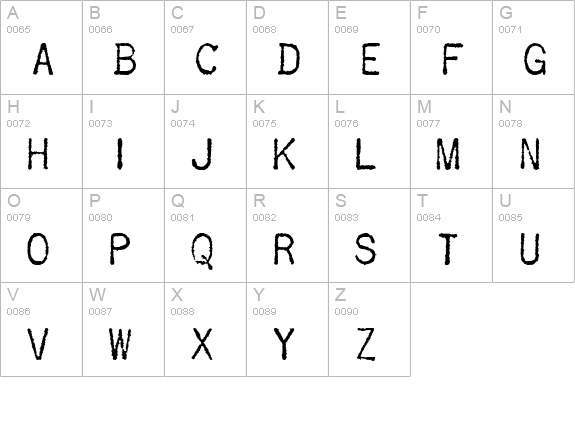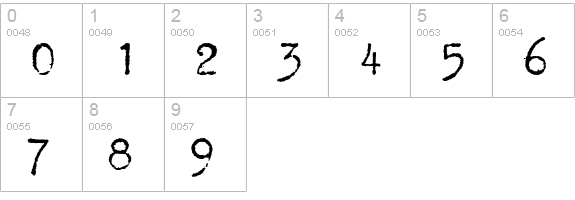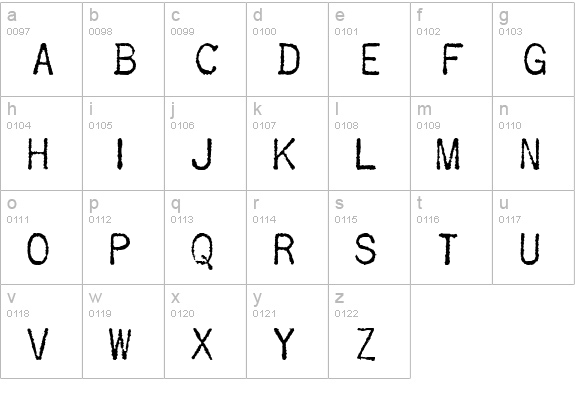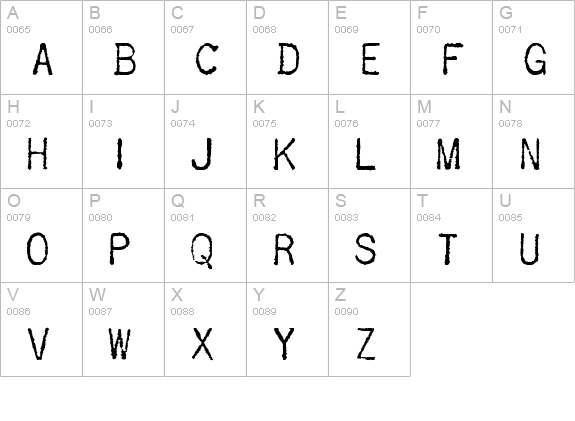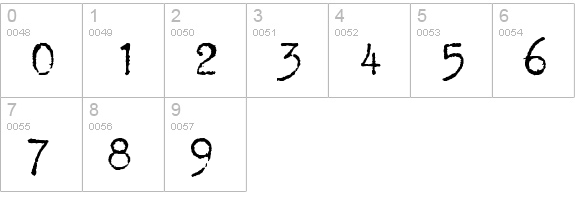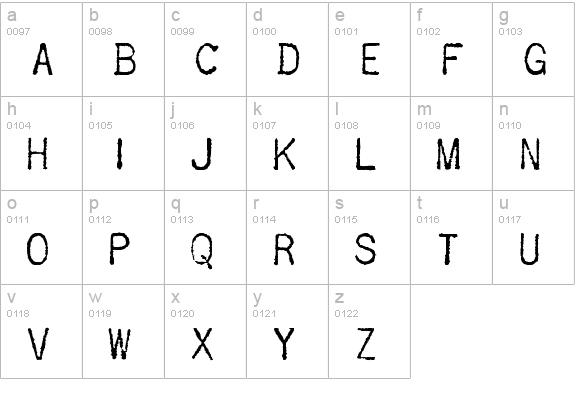
Telegram HPLHS Font Details
Introducing the Telegram HPLHS font - a captivating typeface that will transport you to the eerie world of H.P. Lovecraft's chilling tales. This font is not just a mere representation of letters, but a gateway to the mysteries that lie beyond the realms of our imagination. Crafted with utmost precision and attention to detail, Telegram HPLHS captures the essence of Lovecraft's dark and atmospheric storytelling. Each letter is meticulously designed to evoke a sense of unease and curiosity, drawing you deeper into the enigmatic worlds of the Cthulhu Mythos. But here's the best part - Telegram HPLHS is absolutely free! That's right, you can now enhance your designs, writings, or personal projects with this hauntingly beautiful font without spending a single penny. It's our gift to all the fans of Lovecraft's works and typography enthusiasts alike. To get your hands on this extraordinary font, simply head over to FontsMarket.com, where Telegram HPLHS is freely available for download. Whether you're a designer looking to add a touch of mystique to your creations or a Lovecraft aficionado eager to immerse yourself in the author's literary universe, this font is a must-have in your collection. So embrace the darkness, unleash your creativity, and let Telegram HPLHS guide you into the realms of cosmic horror. Download it now and embark on a typographic journey that will leave you spellbound.